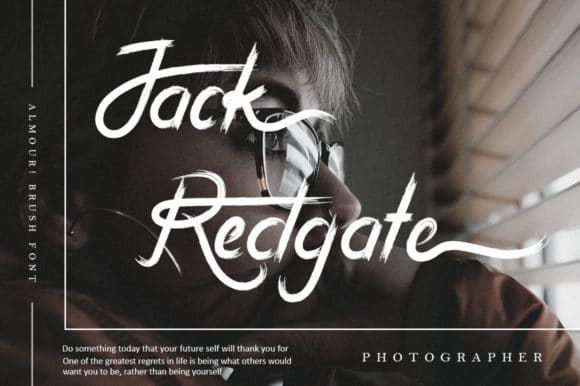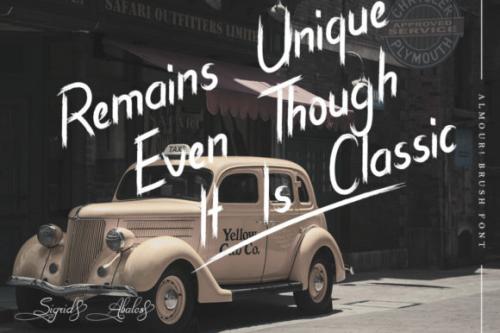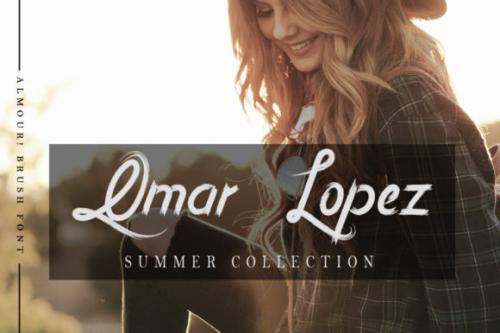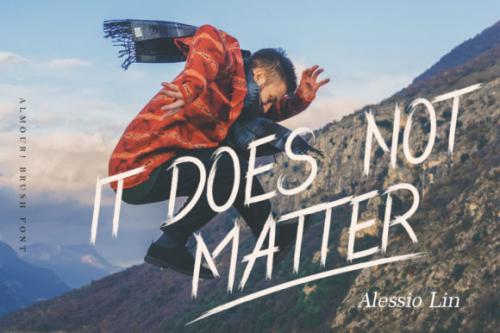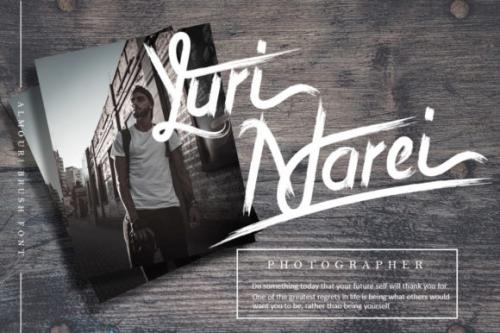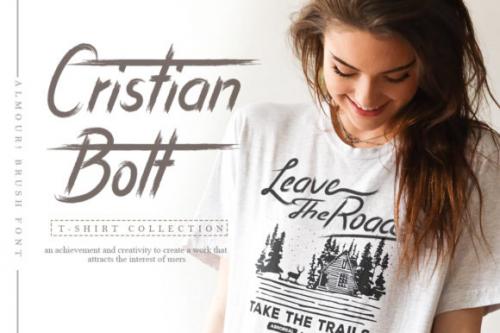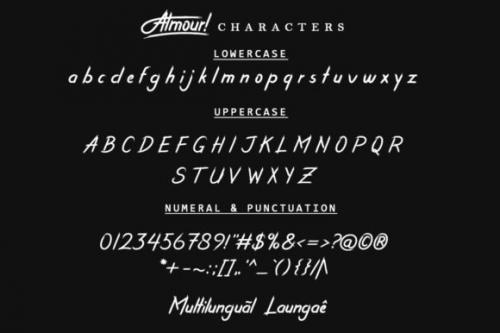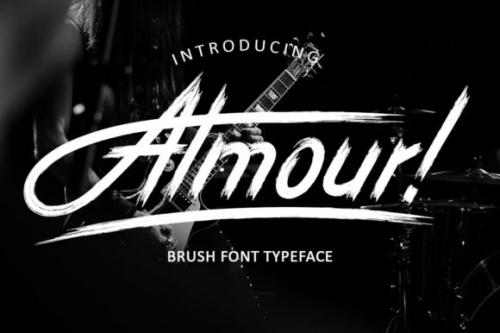
Almour! is a unique brushed display font. This original look will appeal to a wide range of crafty ideas, from letterheads and titles, to stationery.